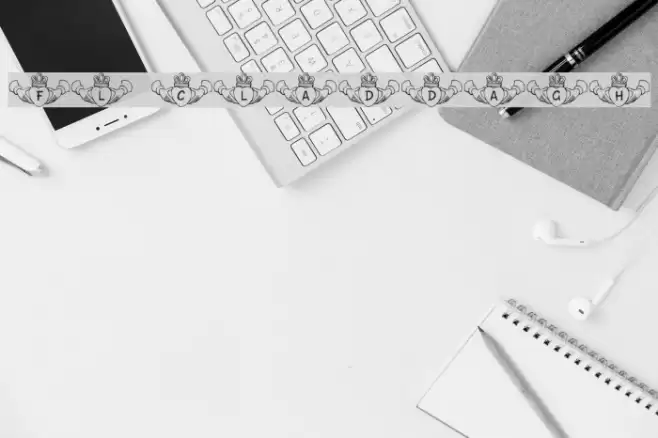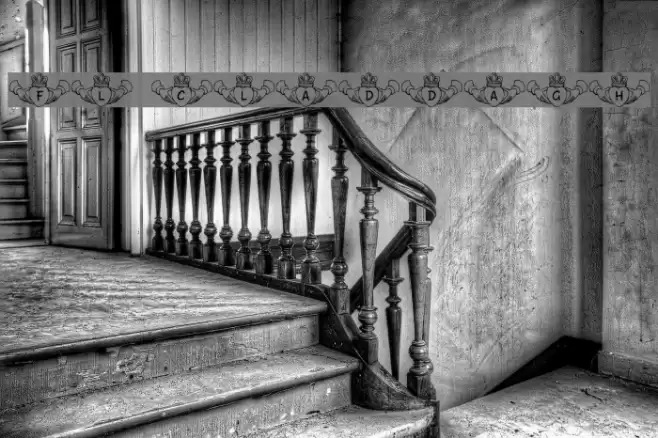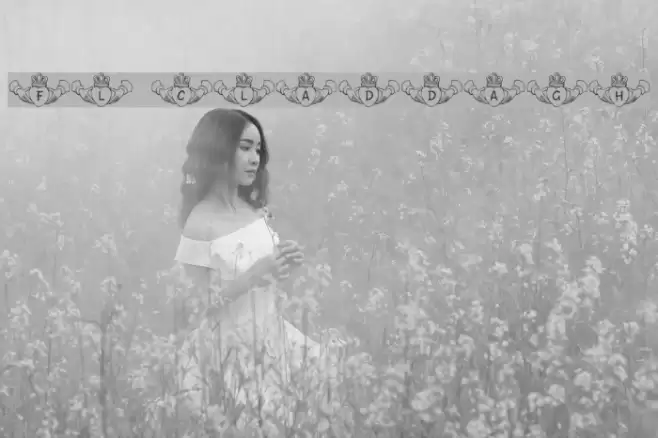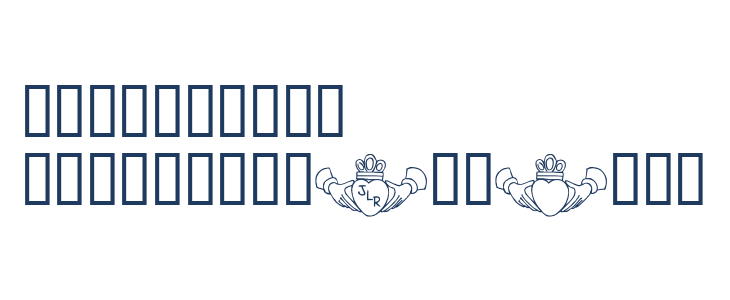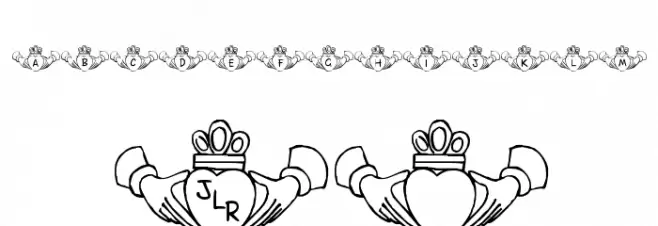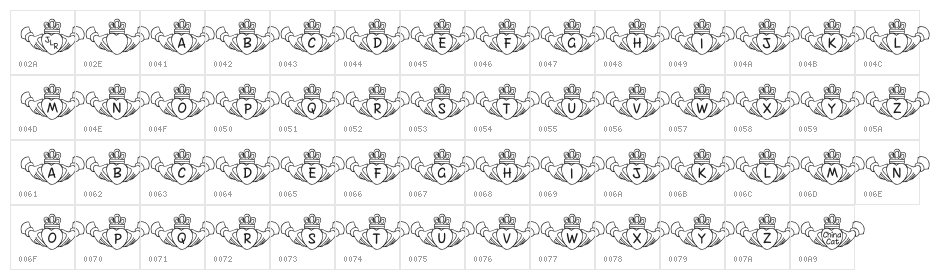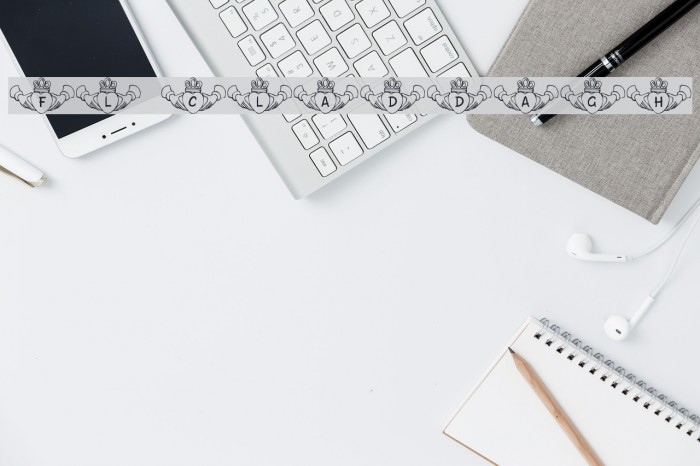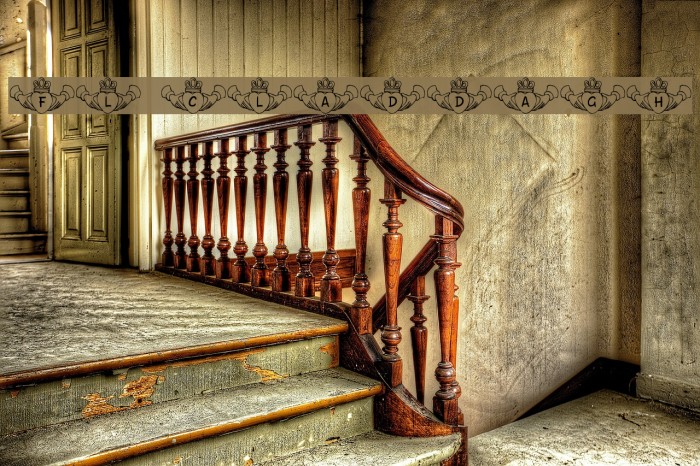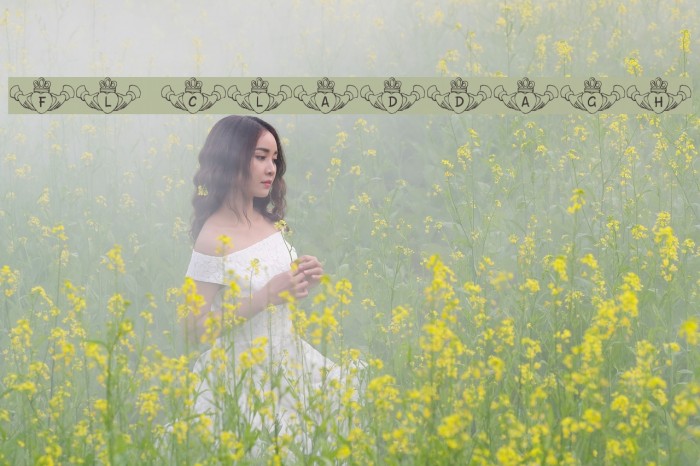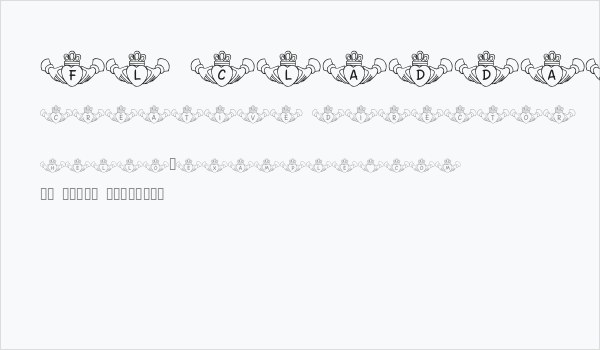
FL Claddagh Font
FL Claddagh Description
This decorative font is inspired by the traditional Claddagh symbol, featuring a heart, crown, and hands motif. Each character is elegantly enclosed within this iconic design, creating a unique and ornate appearance. The letters are bold and clear, making them stand out against the intricate background. This font combines cultural symbolism with artistic flair, making it ideal for projects that require a touch of heritage and elegance. The consistent design across all characters ensures a cohesive look, while the detailed embellishments add a layer of sophistication.
A decorative font featuring letters within a Claddagh symbol design from Uncategorized fonts.
- Proposed Projects: Ideal for wedding invitations, cultural event posters, jewelry branding, and heritage-themed designs.
- Use Case: Logos, Invitations, Posters